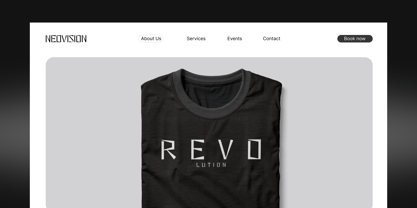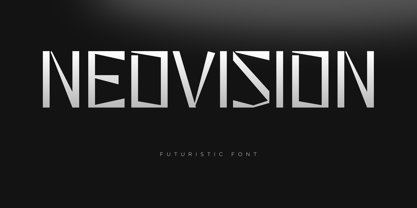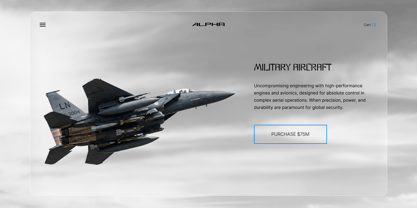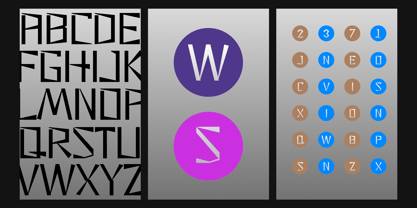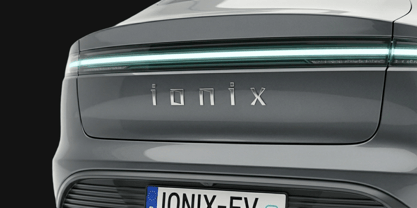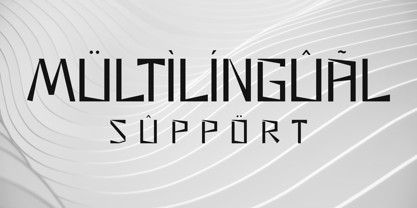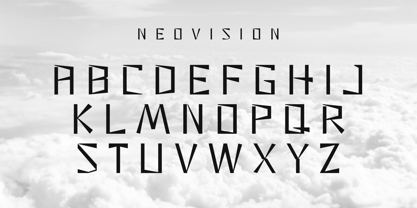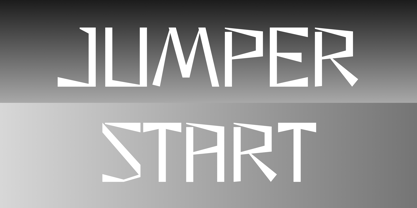
FT Neovision
NEOVISION is a bold, futuristic display font defined by its sharp angles and cutting-edge geometric structure. Designed to evoke a sense of high-tech innovation and cinematic scale, this typeface breaks traditional letterforms with aggressive, stencil-like cuts and a wide, architectural stance.
Combining a sci-fi aesthetic with modern digital precision, NEOVISION is the ultimate choice for projects that demand a powerful, forward-thinking presence. It excels in high-impact environments, from gaming interfaces to automotive branding.
Perfect for:
• Sci-fi & Gaming: UI/UX design, titles, and cinematic posters.
• Tech Branding: AI, aerospace, and innovative tech startups.
• Apparel Design: Streetwear logos and futuristic graphic tees.
• Headlines & Covers: High-energy magazines and music album art.
Key Visual Traits to Note:
• Sharp Terminals: The needle-like points on letters like 'A', 'K', and 'S' give it a "blade" feel.
• Unique Construction: The unconventional 'S' and 'Z' provide a signature look that sets it apart from standard sans-serifs.
• Cinematic Vibe: The wide kerning (as shown in your "NEOVISION" header) makes it look very premium and "big-budget."